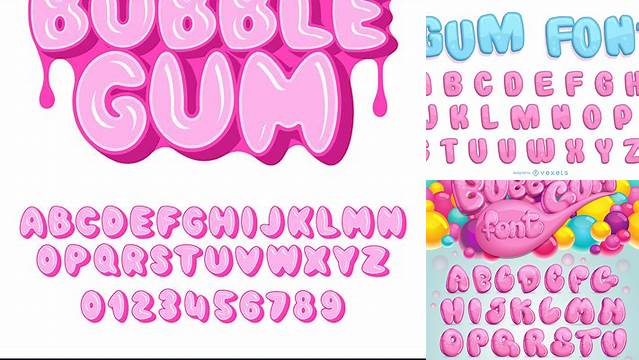
Bubble Gum Font: Free Downloads & Sweet Design Tips
Hey guys! Are you looking to add a playful and whimsical touch to your projects? Well, you've come to the right place! In this article, we're diving deep into the world of bubble gum fonts, those delightfully quirky typefaces that evoke childhood memories and sugary treats. We'll explore what makes these fonts so special, where you can find them for free, and how to use them effectively in your designs. So, grab a virtual piece of gum and let's get started!
What Makes Bubble Gum Fonts So Appealing?
Bubble gum fonts are more than just typefaces; they're a visual representation of fun, joy, and nostalgia. These fonts typically feature rounded shapes, playful curves, and a generally lighthearted aesthetic. Think of the bubbly, bouncy forms of freshly blown bubble gum, and you'll have a good idea of the visual inspiration behind these fonts. They often incorporate thick strokes, exaggerated serifs (or the lack thereof), and sometimes even playful embellishments like stars, dots, or swashes. This inherent playfulness makes them incredibly versatile for a wide range of projects, especially those targeting children, youth, or anyone with a sweet tooth for design.
The appeal of bubble gum fonts lies in their ability to instantly inject personality and charm into any project. They stand out from more traditional fonts, grabbing attention and creating a sense of fun and excitement. This is why they're frequently used in branding for candy stores, bakeries, toy companies, and children's products. Imagine a logo for an ice cream parlor using a classic bubble gum font – the visual connection is immediate and effective. But their use isn't limited to food-related businesses. Bubble gum fonts can also be a great choice for party invitations, posters, social media graphics, and even website headers, adding a touch of whimsy and approachability to any online presence.
Another key aspect of their appeal is their ability to evoke nostalgia. The style of these fonts often reminds people of vintage cartoons, comic books, and childhood memories. This nostalgic connection can be a powerful tool in marketing and branding, as it can create a sense of familiarity and trust with the audience. By using a bubble gum font, you're not just choosing a typeface; you're tapping into a shared cultural experience and leveraging the positive emotions associated with it. Think about the logos of classic candy brands or the title cards of beloved children's shows – many of them utilize fonts that share the characteristics of bubble gum fonts, creating a strong link between the visual style and the feeling of nostalgia.
Furthermore, the unique character of bubble gum fonts allows for a great deal of creative expression. Their distinct shapes and features make them ideal for creating eye-catching headlines, logos, and other display elements. They can be easily customized with different colors, outlines, and effects to further enhance their playful nature. For example, using a vibrant pink or blue color palette can amplify the bubble gum aesthetic, while adding a drop shadow or glow effect can make the letters appear even more bouncy and three-dimensional. The flexibility and adaptability of these fonts make them a valuable tool in any designer's arsenal, offering a way to inject personality and fun into a wide range of projects.
Where to Find Free Bubble Gum Fonts
DaFont: DaFont is a popular website with a massive collection of fonts, including a wide variety of bubble gum-style fonts. However, it's crucial to be cautious on DaFont, as the licensing terms can vary greatly from font to font. Some fonts are free for personal use only, while others are free for commercial use. Always check the license agreement provided by the font author before using any font from DaFont, especially for commercial projects. Look for the "100% Free" filter to narrow your search to fonts that are free for all uses.
Creative Market (Free Goods): Creative Market is a marketplace for design assets, including fonts. While most items on Creative Market are paid, they often offer a selection of free goods, including fonts, on a weekly basis. Keep an eye on their free goods section, as you might stumble upon a gem that fits the bubble gum aesthetic. As with any font source, always review the licensing terms before use.
MyFonts: MyFonts is a reputable font foundry that offers both free and paid fonts. While their selection of free fonts is smaller than some other sites, the quality is generally very high. Browse their collection or use the search function to find fonts with playful and rounded characteristics. Be sure to check the licensing terms for any font you download.
Conclusion: Add Some Sweetness to Your Designs
So there you have it – a comprehensive guide to the world of bubble gum fonts! These playful typefaces are a fantastic way to inject fun, personality, and a touch of nostalgia into your designs. With the abundance of bubble gum font free download options available online, there's no reason not to experiment and see how these fonts can elevate your projects. Just remember to use them judiciously, pair them thoughtfully, and always check those licensing agreements. Now go forth and create something sweet!